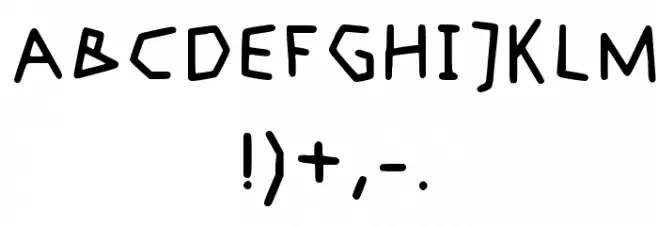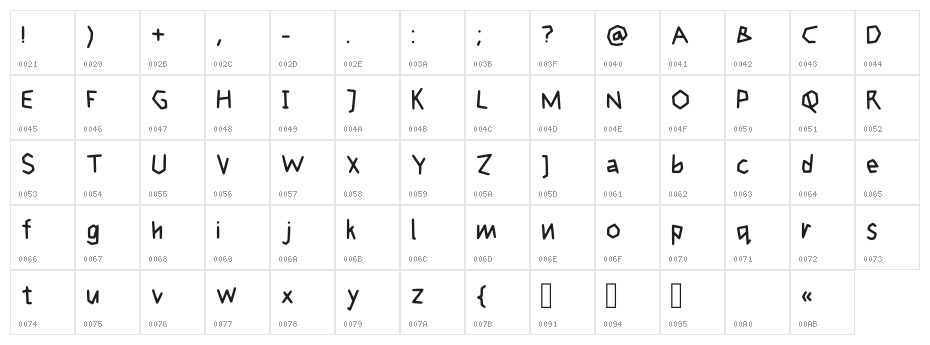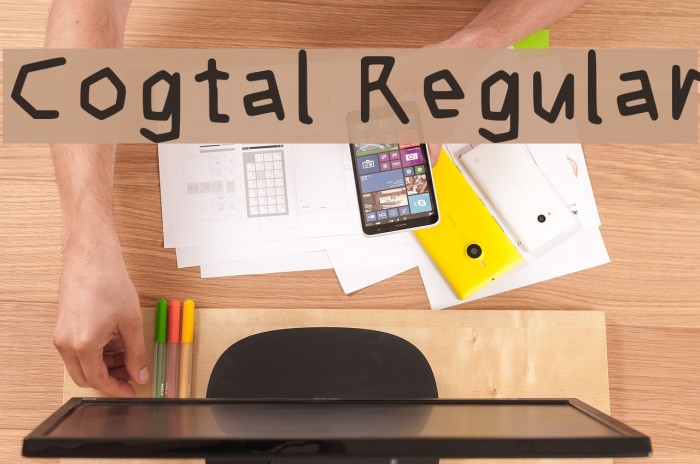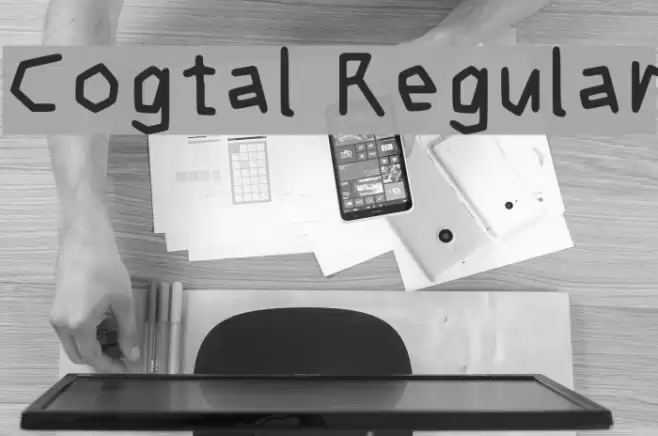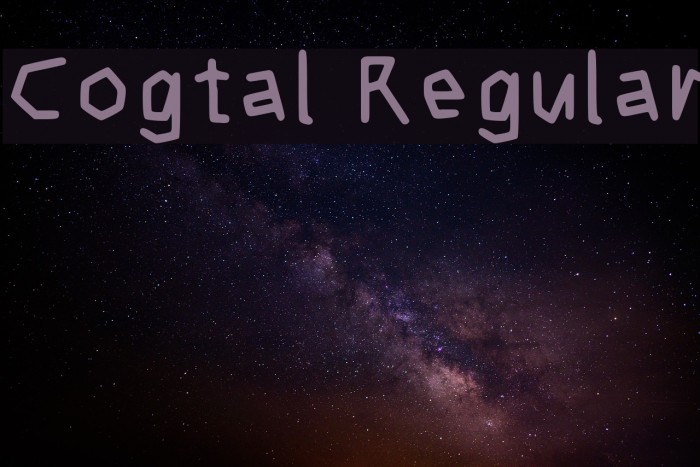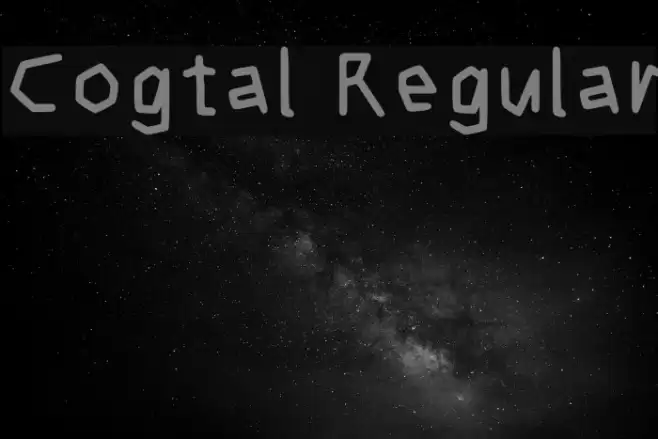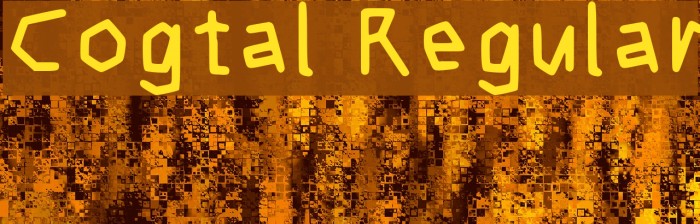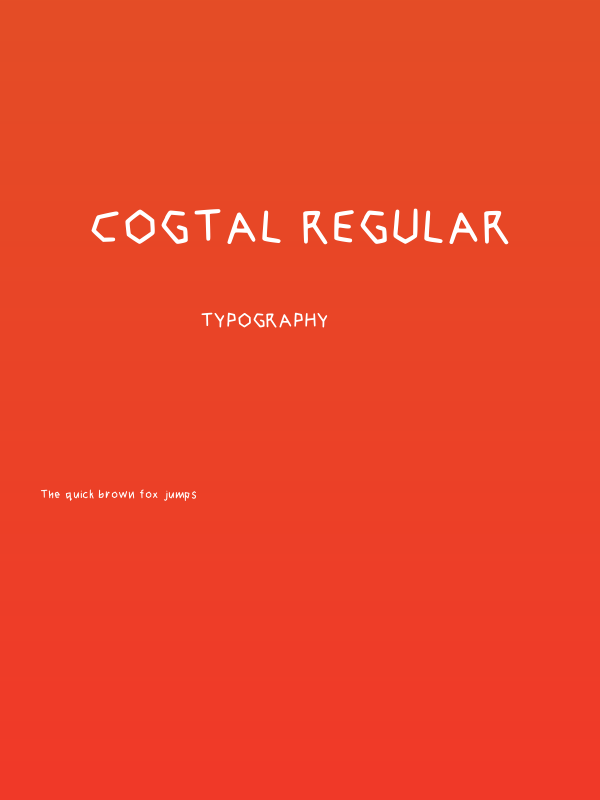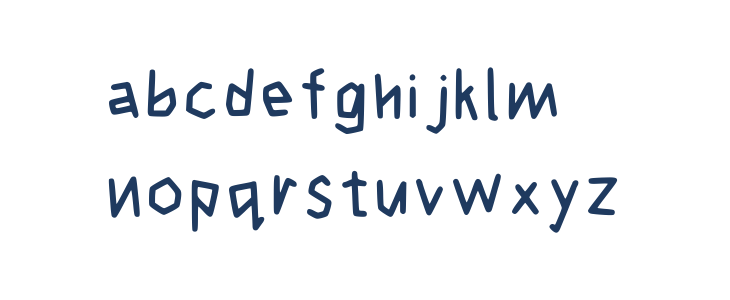
Cogtal Regular Font
Cogtal Regular Description
This font features a playful and quirky design with irregular, hand-drawn strokes that give it a casual and informal appearance. The characters are slightly tilted and vary in width, adding to the whimsical feel. The uppercase and lowercase letters maintain a consistent style, with rounded edges and uneven lines that create a sense of movement. The numerals and special characters follow the same design principles, ensuring a cohesive look throughout. This font is ideal for projects that require a fun and approachable aesthetic.
Overall StyleCasual
Use CaseLogos, Headlines, Informal Text
Proposed ProjectsIdeal for children's books, greeting cards, playful branding, and casual invitations.